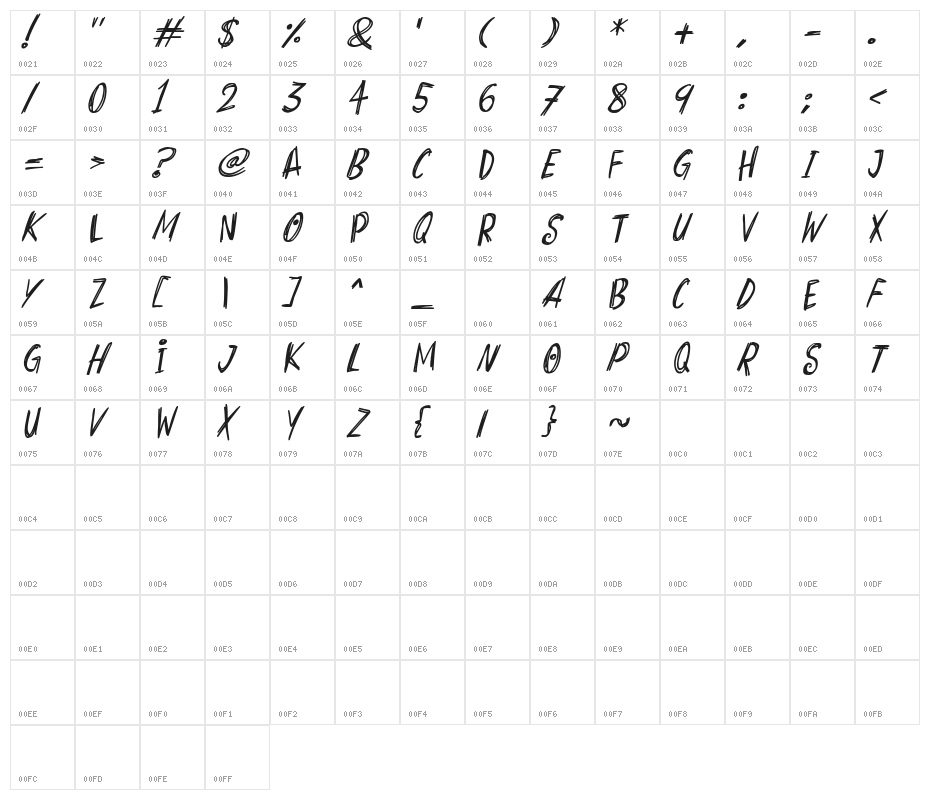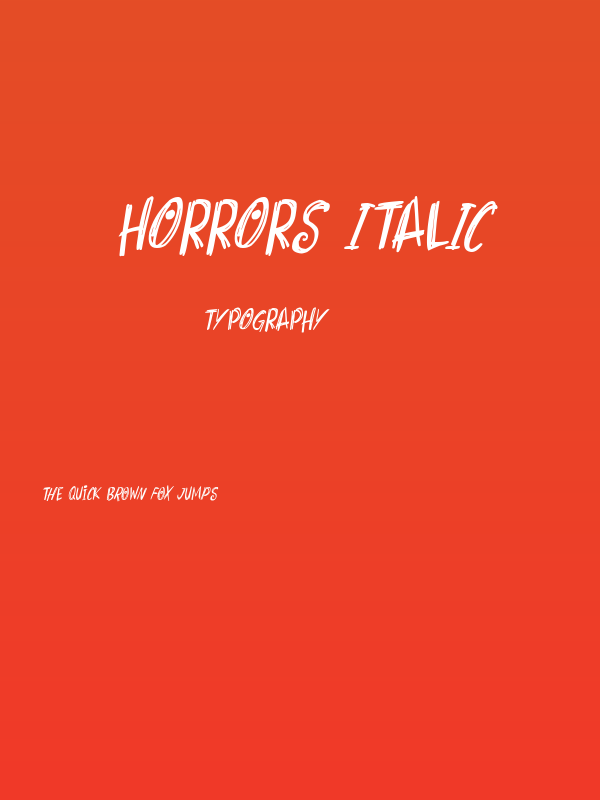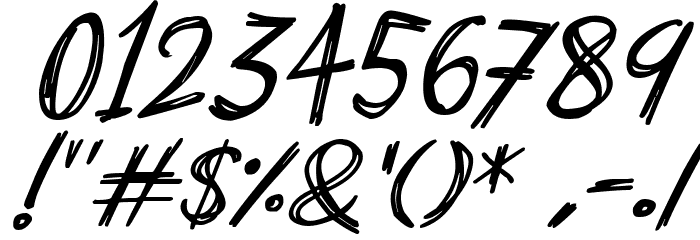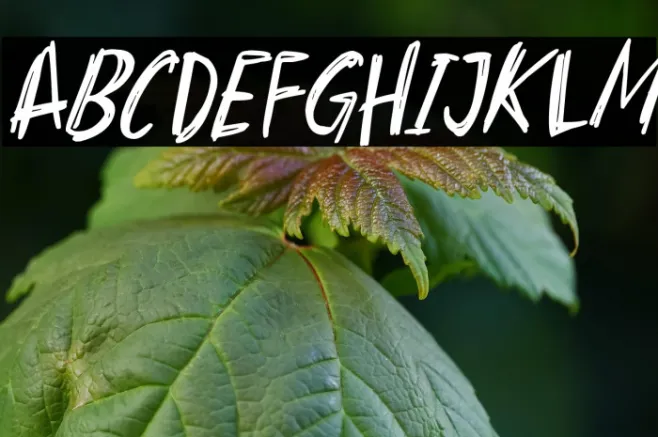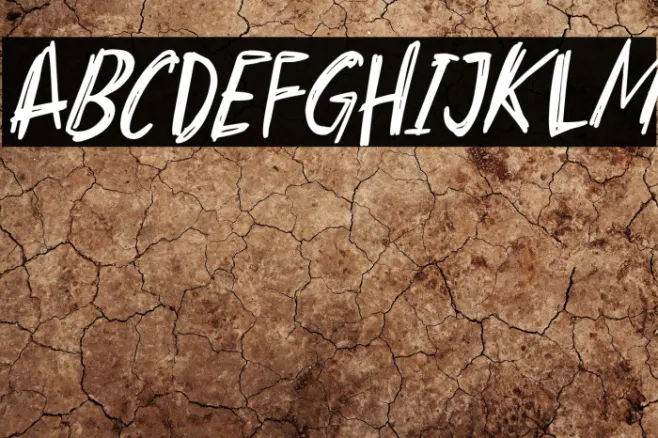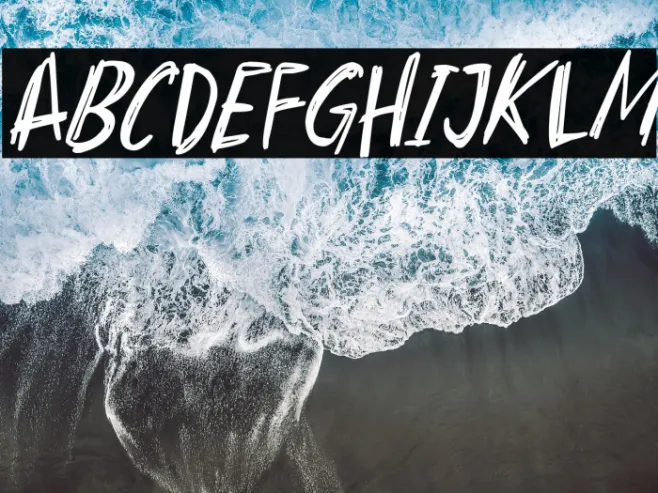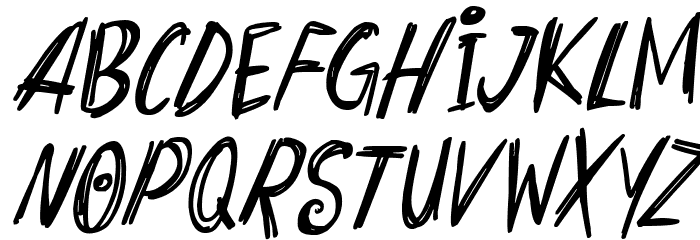
Horrors Italic Font
Horrors Italic Description
This font exudes a dynamic and edgy style, characterized by its sharp, angular strokes and a handwritten appearance. The letters are slightly slanted, adding a sense of motion and urgency. The uppercase and lowercase letters maintain a consistent style, with exaggerated curves and pointed edges that give it a dramatic flair. The numerals and special characters follow the same aesthetic, ensuring a cohesive look across all text elements. The font's irregularities and bold strokes make it stand out, perfect for capturing attention.
| Proposed Projects | Ideal for horror-themed posters, edgy branding, Halloween invitations, and graphic novels. |